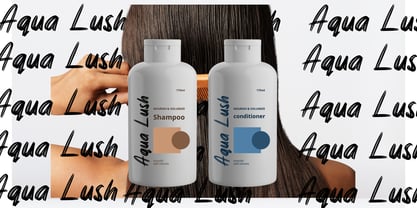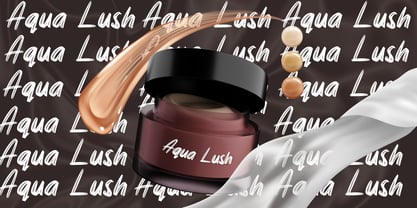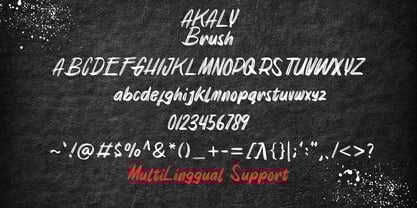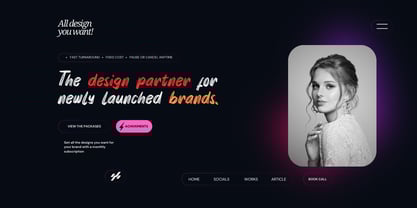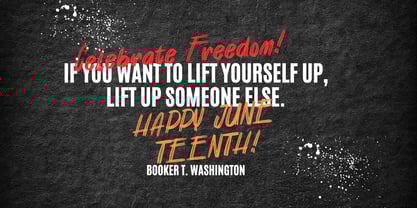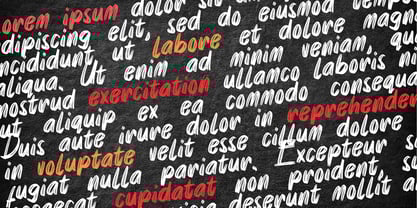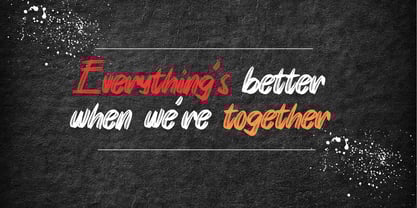
Akaly Brush
by DM Studio
The Akaly Brush Font Family was designed by Dimas Prasetyo and published by DM Studio. Akaly Brush contains 1 styles.
Akaly Brush Font is a bold and expressive typeface with a handcrafted brushstroke feel. Designed to bring energy and personality to your projects, this font is perfect for branding, posters, social media graphics, packaging, and more. Its natural, textured strokes add an authentic, hand-painted look, making your text stand out with artistic flair. Whether you're creating edgy street-style designs or elegant handcrafted typography, Akaly Brush Font delivers versatility and impact.
• Handcrafted Brush Texture: Natural and dynamic strokes for an authentic, hand-painted look.
• Versatile and Stylish: Works great for modern, urban, and artistic themes.